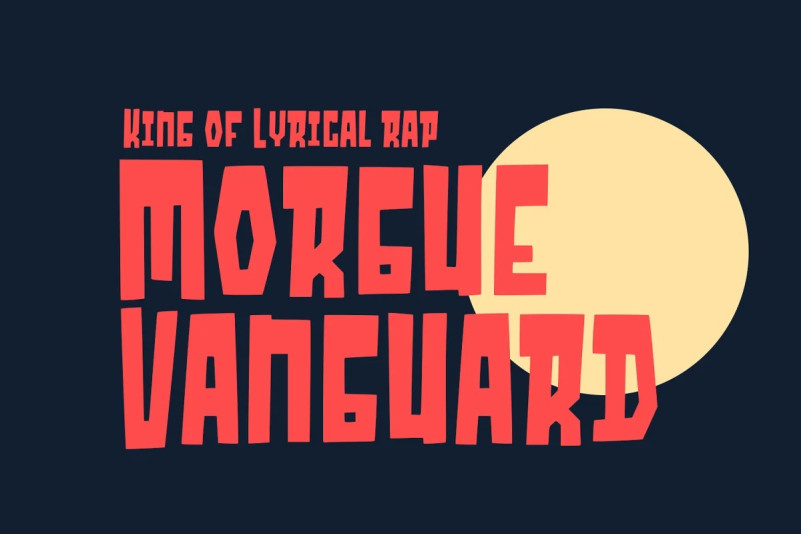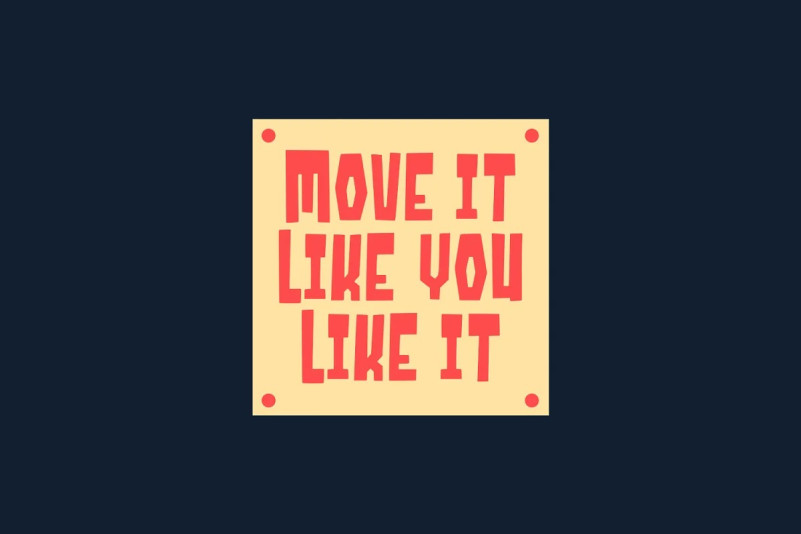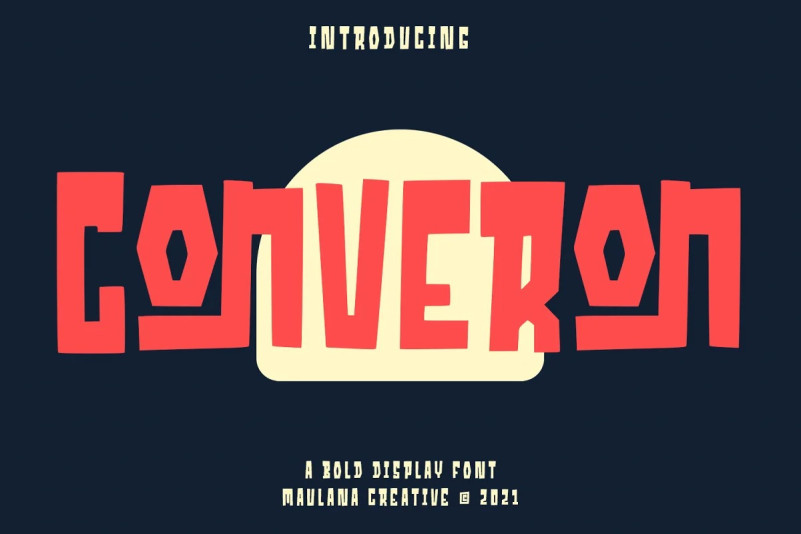
Converon Font
Converon Display Font is a decorative cubical display font. With bold sharp edges stroke, fun character with a bit of ligatures. To give you an extra creative work. Converon font support multilingual more than 100+ language. This font is good for logo design, Social media, Movie Titles, Books Titles, a short text even a long text letter and good for your secondary text font with sans or serif. Make a stunning work with Converon font.